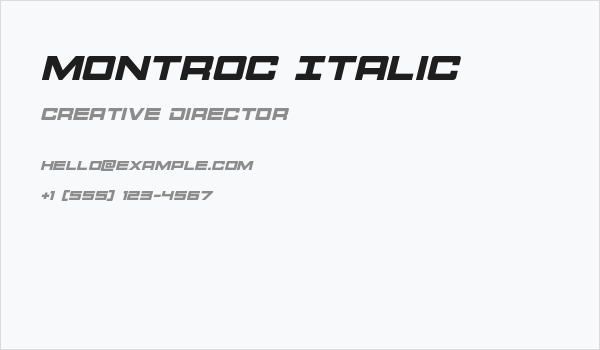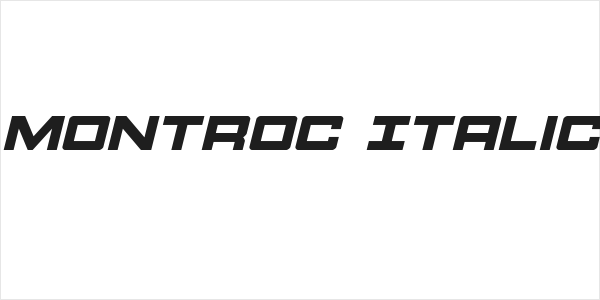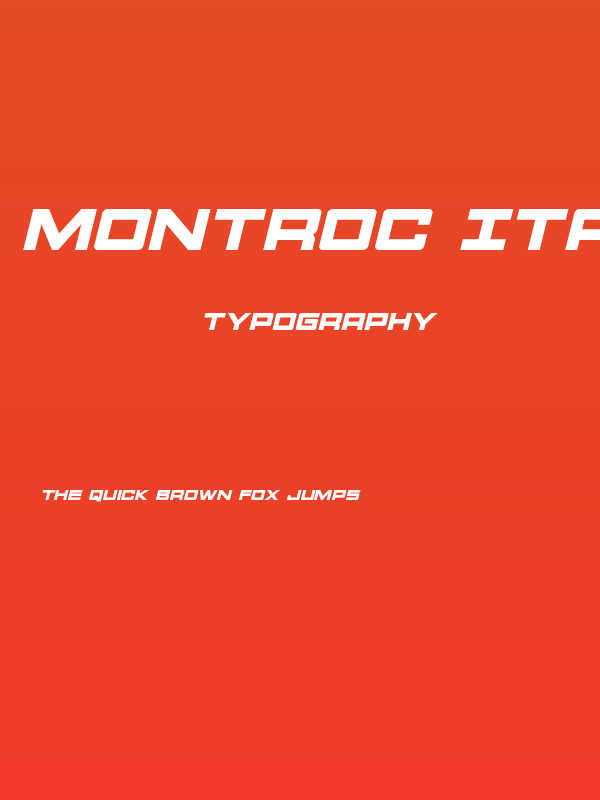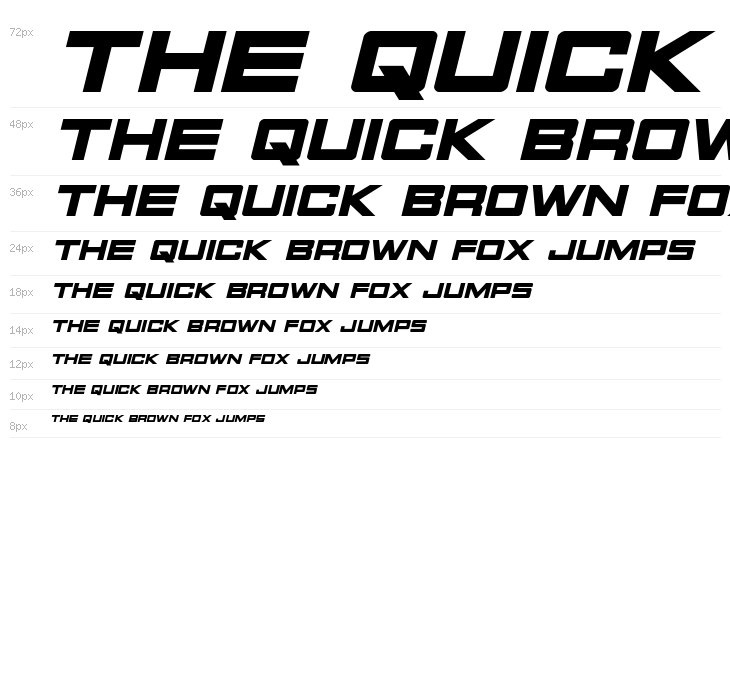
Montroc Italic Font
Montroc Italic Description
This font features a bold, italicized style with a modern and dynamic appearance. The characters are slightly slanted, giving a sense of motion and speed. The strokes are thick and consistent, contributing to a strong visual impact. The font maintains a geometric structure, with sharp angles and clean lines, making it suitable for contemporary designs. The spacing between characters is tight, enhancing its compact and cohesive look. This font is ideal for projects that require a bold statement, such as sports branding, automotive designs, or tech-related materials.
| Proposed Projects | Ideal for sports branding, automotive designs, tech-related materials, and dynamic headlines. |